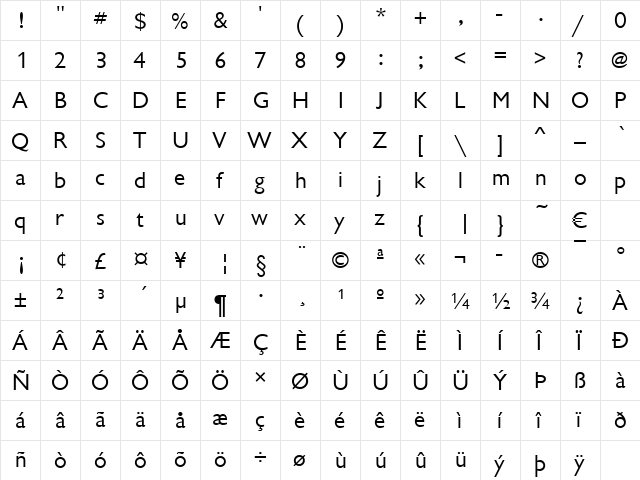
Sharp Regular
Design Context for Sharp Typeface
Sharp offers clean, dependable letterforms without strong stylistic allegiance, making it a practical choice for designers who need flexibility.
Pro Tip: Use Sharp in both headline and body roles to test its range before committing to a single application.